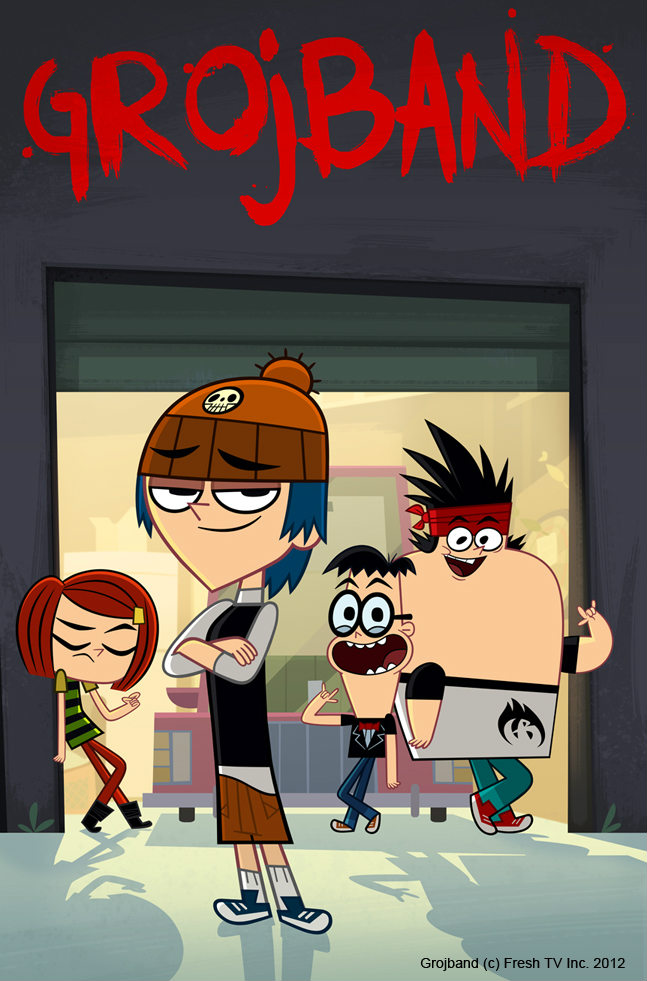
Grojband Logo Font
The Grojband title of the TV series uses a handmade brush font named Trollslayer, by Dutch designer David Kerkhoff. You can preview and purchase the font here.